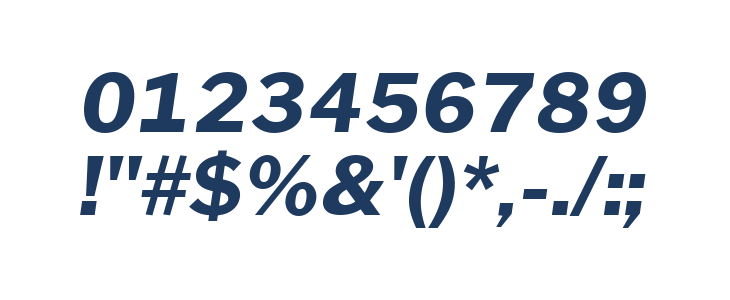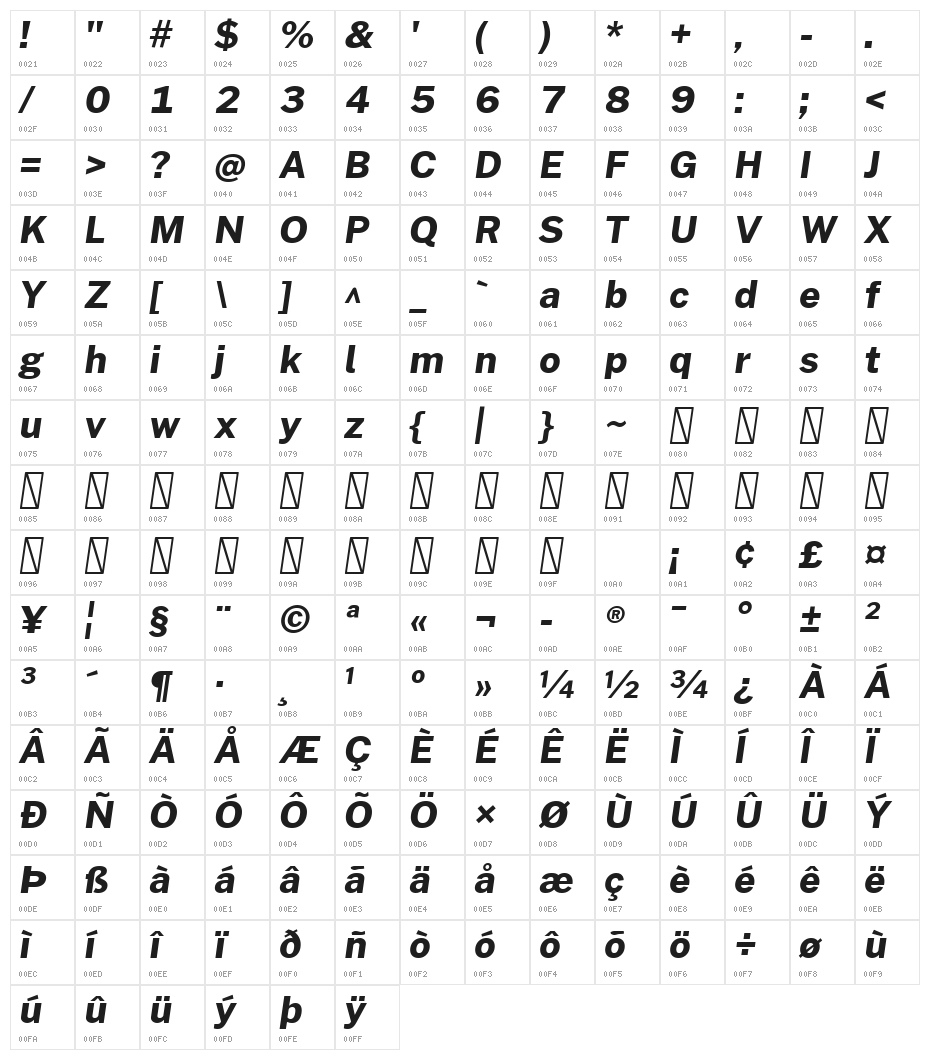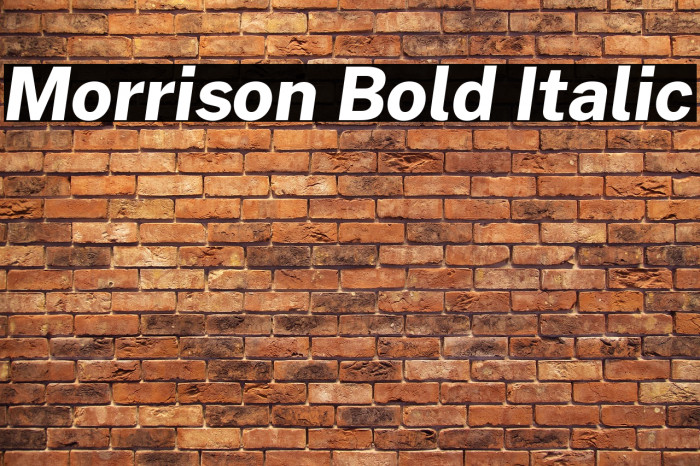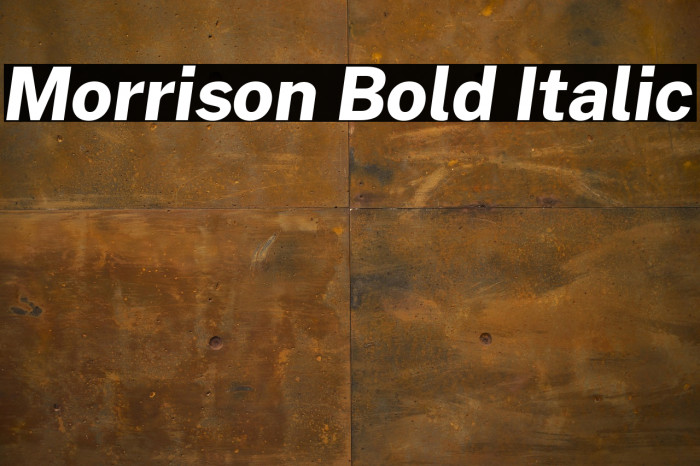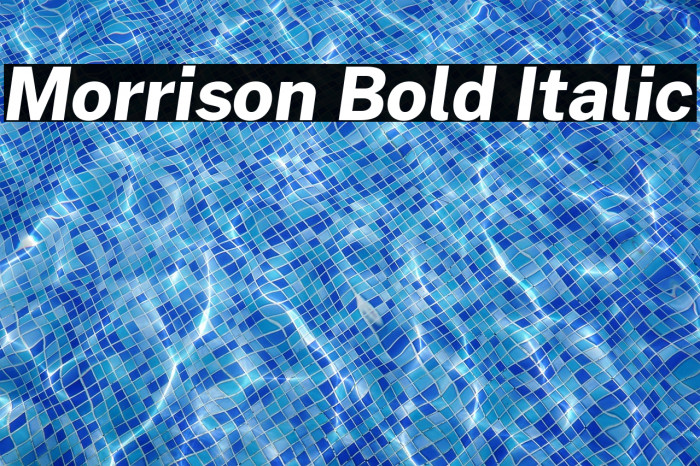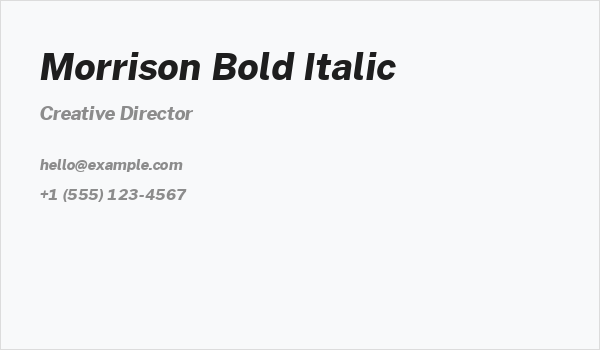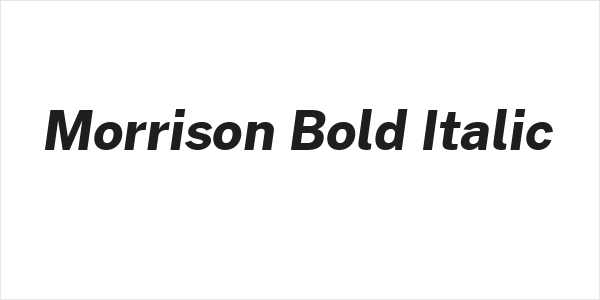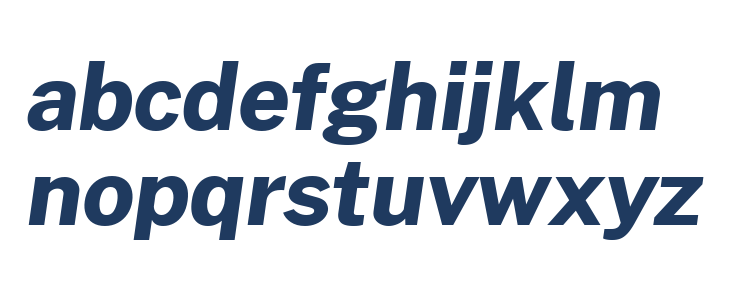
Morrison Bold Italic Font
Morrison Bold Italic Description
This font features a bold and italicized style, combining strength with a dynamic slant. The characters are well-defined with consistent stroke thickness, offering a modern and assertive appearance. Uppercase and lowercase letters maintain a uniform look, while numerals and special characters are clear and easily distinguishable. The italic angle adds a sense of motion and elegance, making it suitable for impactful and stylish designs. The bold weight ensures visibility and emphasis, making it ideal for headlines and attention-grabbing text.
| Proposed Projects | Ideal for branding, advertising, headlines, and any project requiring a strong, modern typeface. |